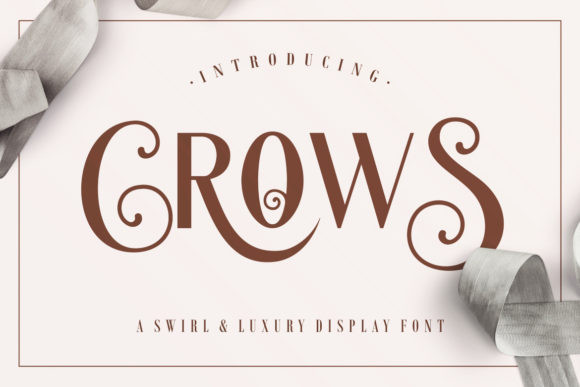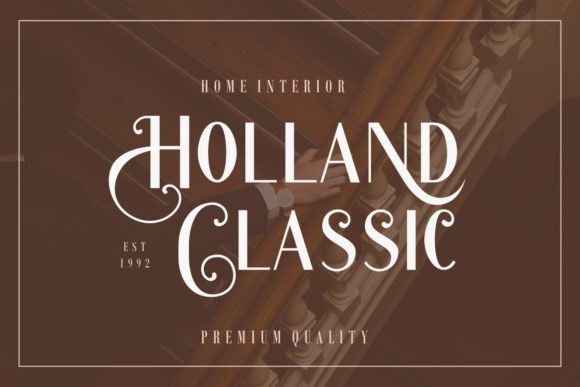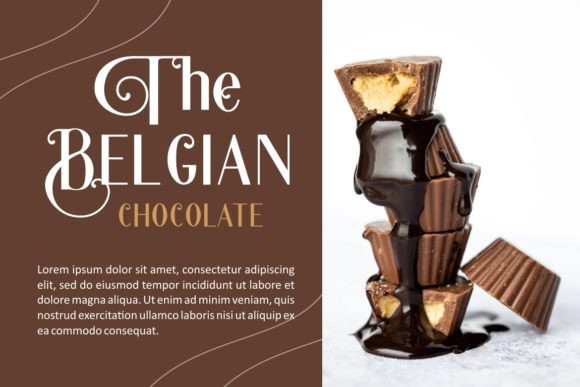
Crows Font
Crows is elegant and sophisticated, but also playful. This versatile display font has a wide range of applications ranging from headlines to branding and is guaranteed to add a bold touch to your next design.